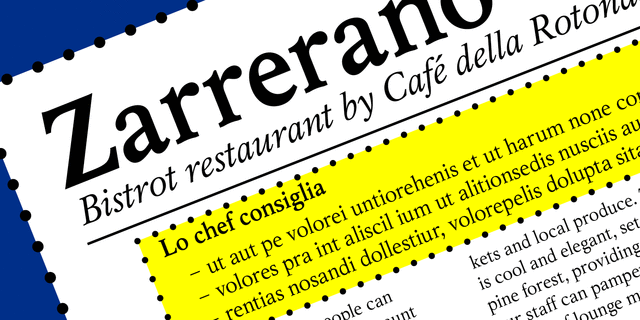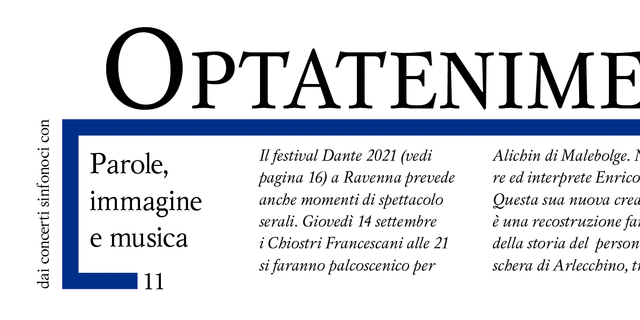
Mysl (4 fonts)
The typeface was designed at the Polygraphmash type design bureau in 1986 by Isay Slutsker, Svetlana Yermolaeva, Emma Zakharova. It is based on Polytizdatkaya type family, 1966, by Vera Chiminova, inspired by typefaces of a French mid-16th century punchcutter Claude Garamond. The family was initially developed for Mysl Publishers, Moscow. Mysl is a good choice for text setting.
Associations for font family MyslTypeface personality and character:
comme il faut, pretentious, noble, conservative, traditional, classic, artistic, silver, educated, masterful, architectural, narrative, historical, humanitarian, polite, tactful
Typeface exhibits stylistic traits: